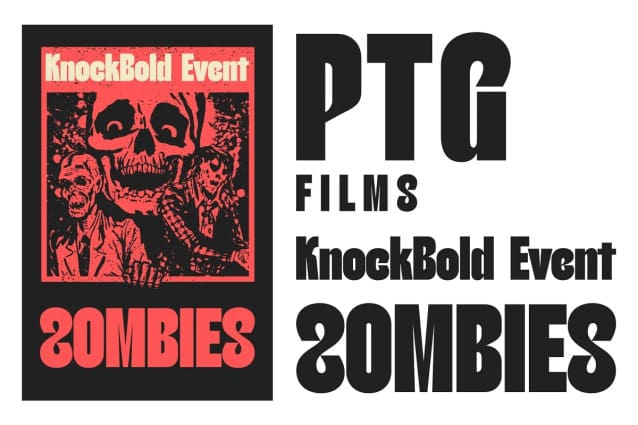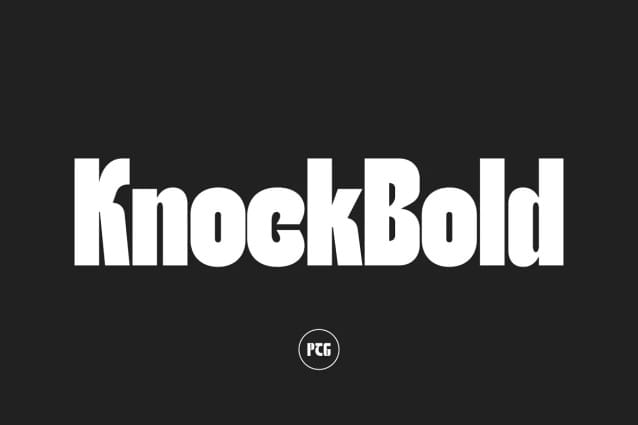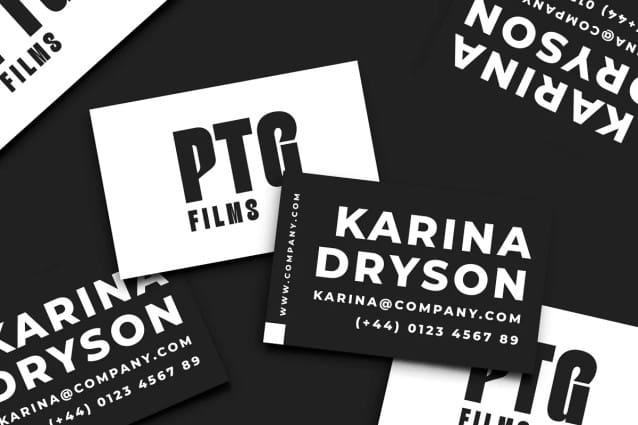
Knockbold Font
Knockbold Font – This typeface has a unique and attractive appearance. Knockbold looks great when combined with solid character fonts.